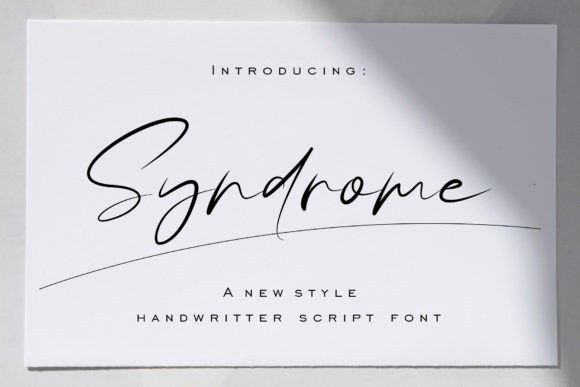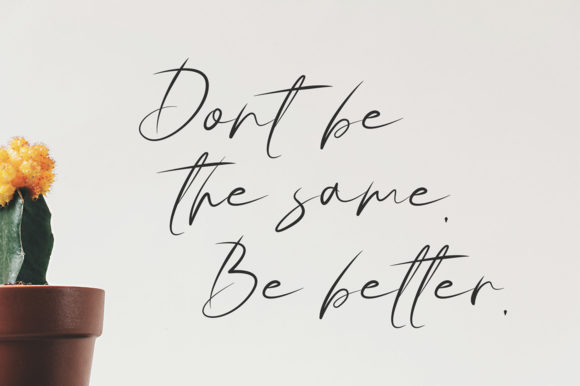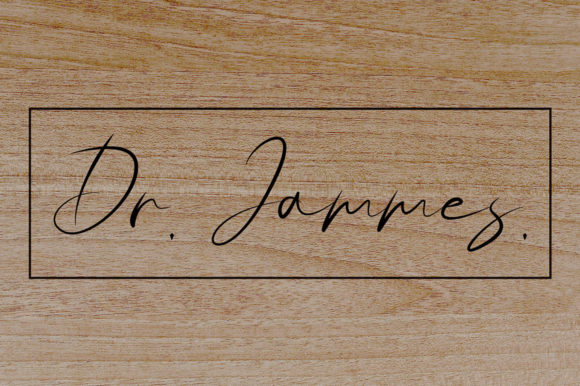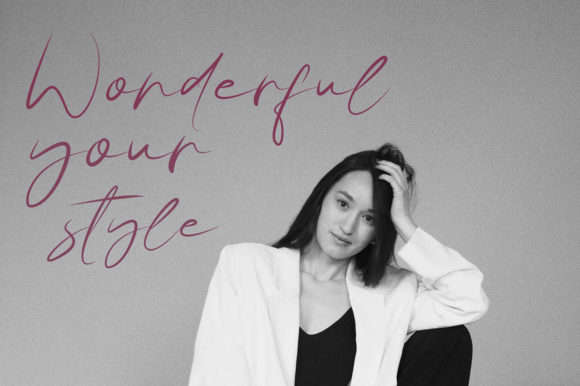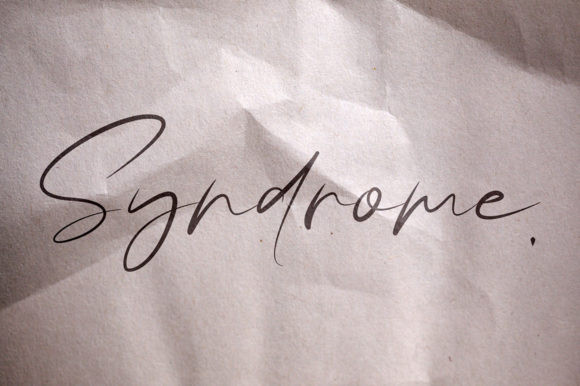
Syndrome Font
About Syndrome Font
Introducing Syndrome, a natural and classic handwritten font that effortlessly combines an elegant touch with timeless style, making it the perfect choice for a wide range of creative projects. With its distinctive and versatile design, Syndrome adds a touch of sophistication to any endeavor, allowing you to create spectacular designs that stand out.
This font’s appeal lies in its unique charm, characterized by natural, flowing strokes that give each letter a distinctive personality. The handwritten aesthetic adds a personal and human element, making Syndrome suitable for various design applications. Whether you’re working on invitations, branding, signage, or any creative project, Syndrome lends a touch of refinement that stands the test of time.
The versatility of Syndrome shines through as it complements both modern and classic design themes. Its elegance makes it a natural choice for projects where a sophisticated and timeless style is desired. Fall in love with the way Syndrome transforms ordinary text into an artistic statement, creating a visual experience that captivates and resonates.
Consider using Syndrome for:
1. **Invitations:** Infuse your event invitations with a touch of class and individuality.
2. **Branding:** Establish a distinctive and memorable brand identity with Syndrome’s unique handwritten style.
3. **Signage:** Capture attention with signage that is not only informative but also visually appealing.
4. **Creative Projects:** Let Syndrome elevate your designs, adding a layer of sophistication to your creative endeavors.
The beauty of Syndrome lies in its ability to adapt to various design needs, making it a reliable and inspiring choice for designers and creators alike. Once you try Syndrome, you’ll find that its timeless style becomes an integral part of your design toolkit.
Experience the charm of Syndrome for yourself – give it a try, and you’ll undoubtedly fall in love with its completely different and timeless style. Transform your projects into works of art with Syndrome’s natural and classic handwritten elegance.